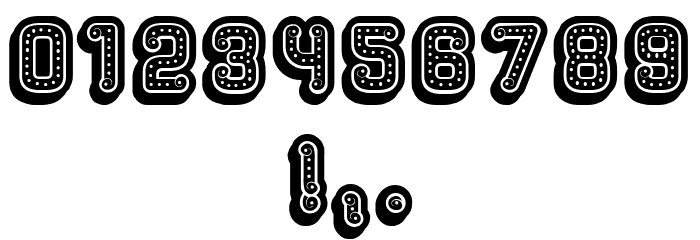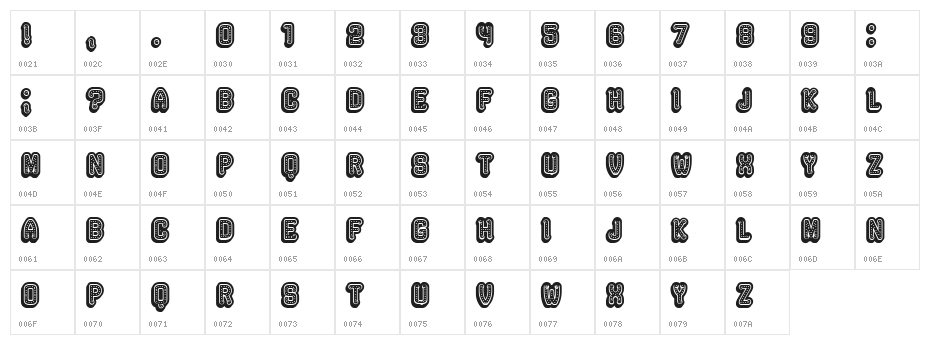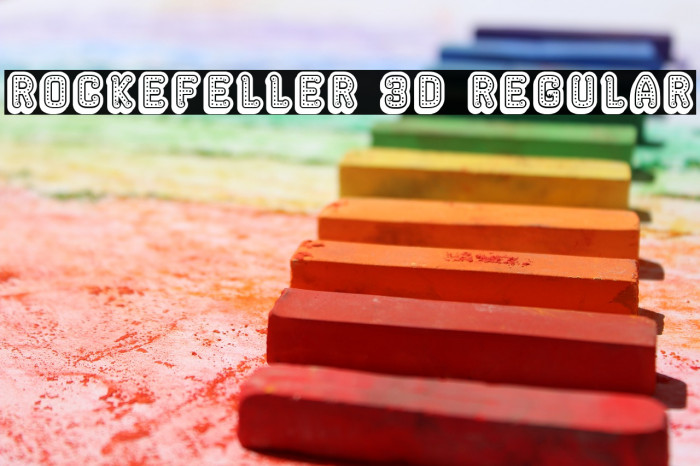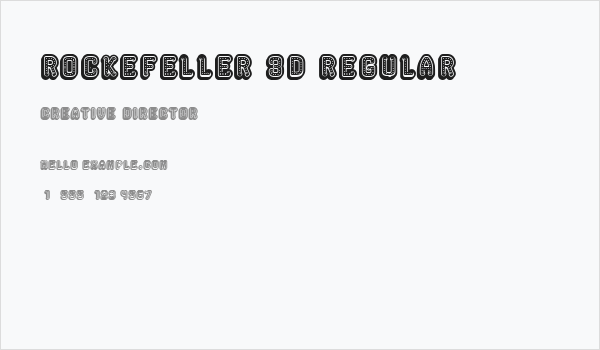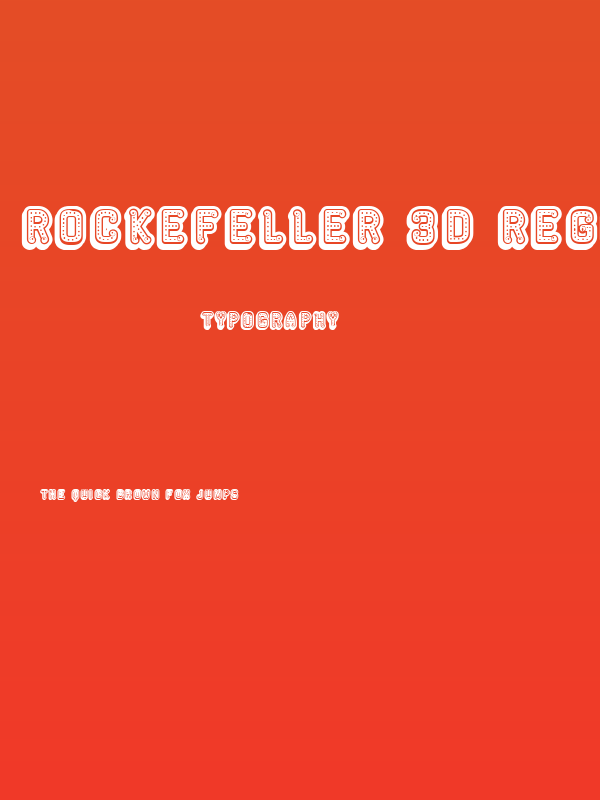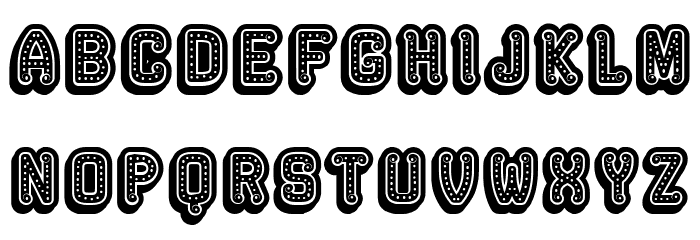
Rockefeller 3D Regular Font
Rockefeller 3D Regular Description
This font features a bold and playful 3D effect, with each character outlined in black and filled with white dots, creating a striking visual impact. The letters have a rounded, bubble-like appearance, adding a sense of fun and whimsy. The 3D effect is enhanced by a shadow that gives depth to each character, making them stand out prominently. This decorative style is eye-catching and ideal for designs that require a bold statement. The font includes both uppercase and lowercase letters, numbers, and a selection of special characters, all maintaining the same playful and dynamic style.